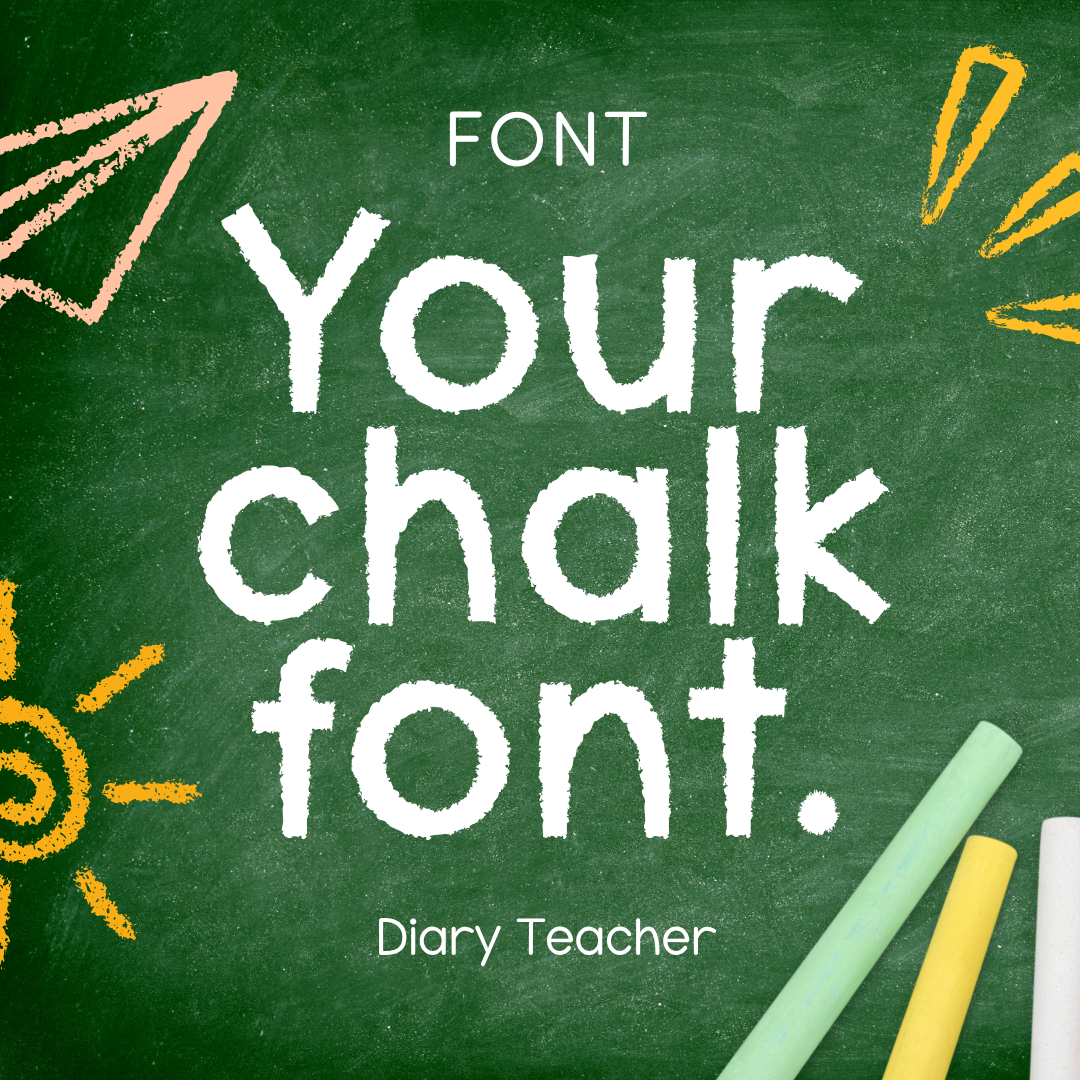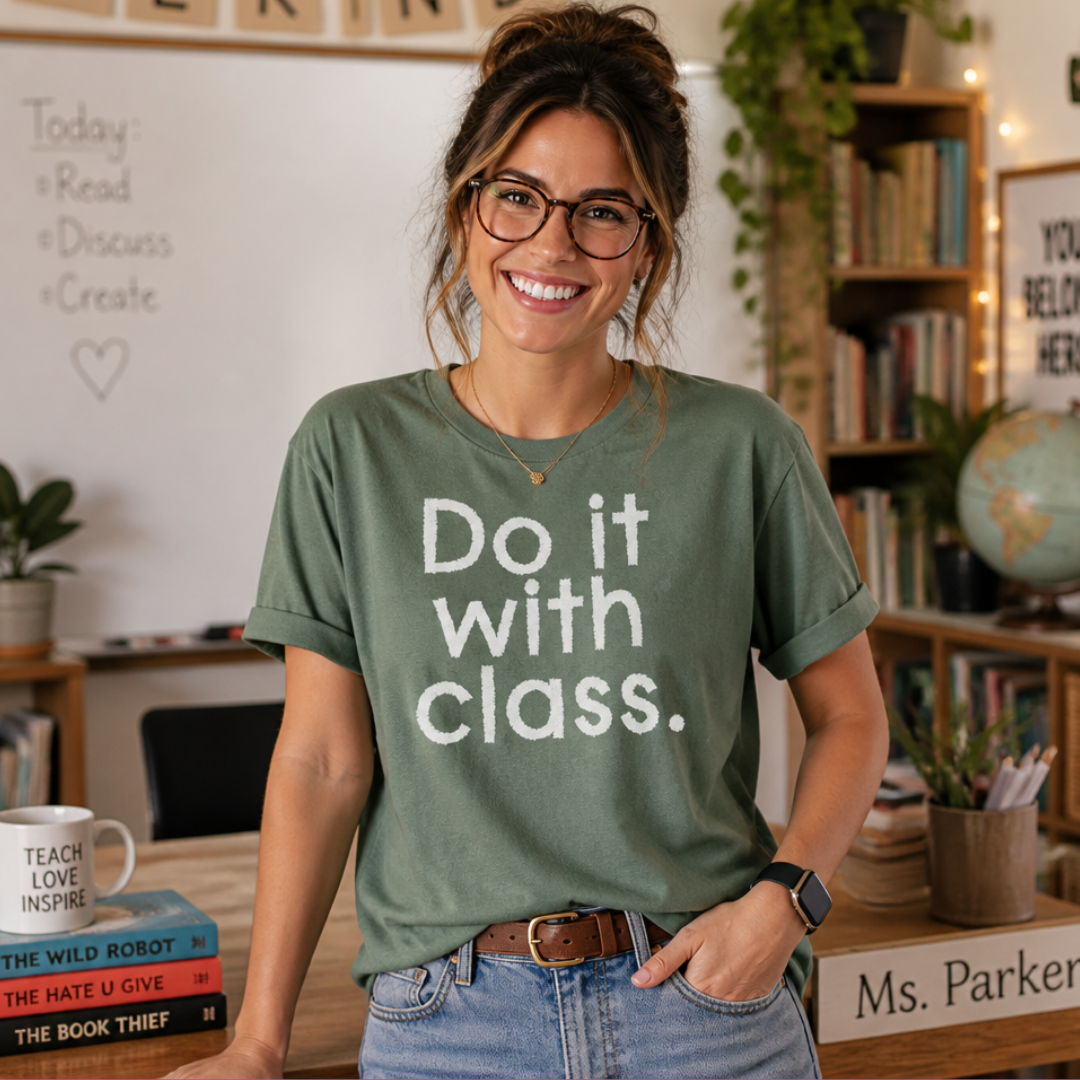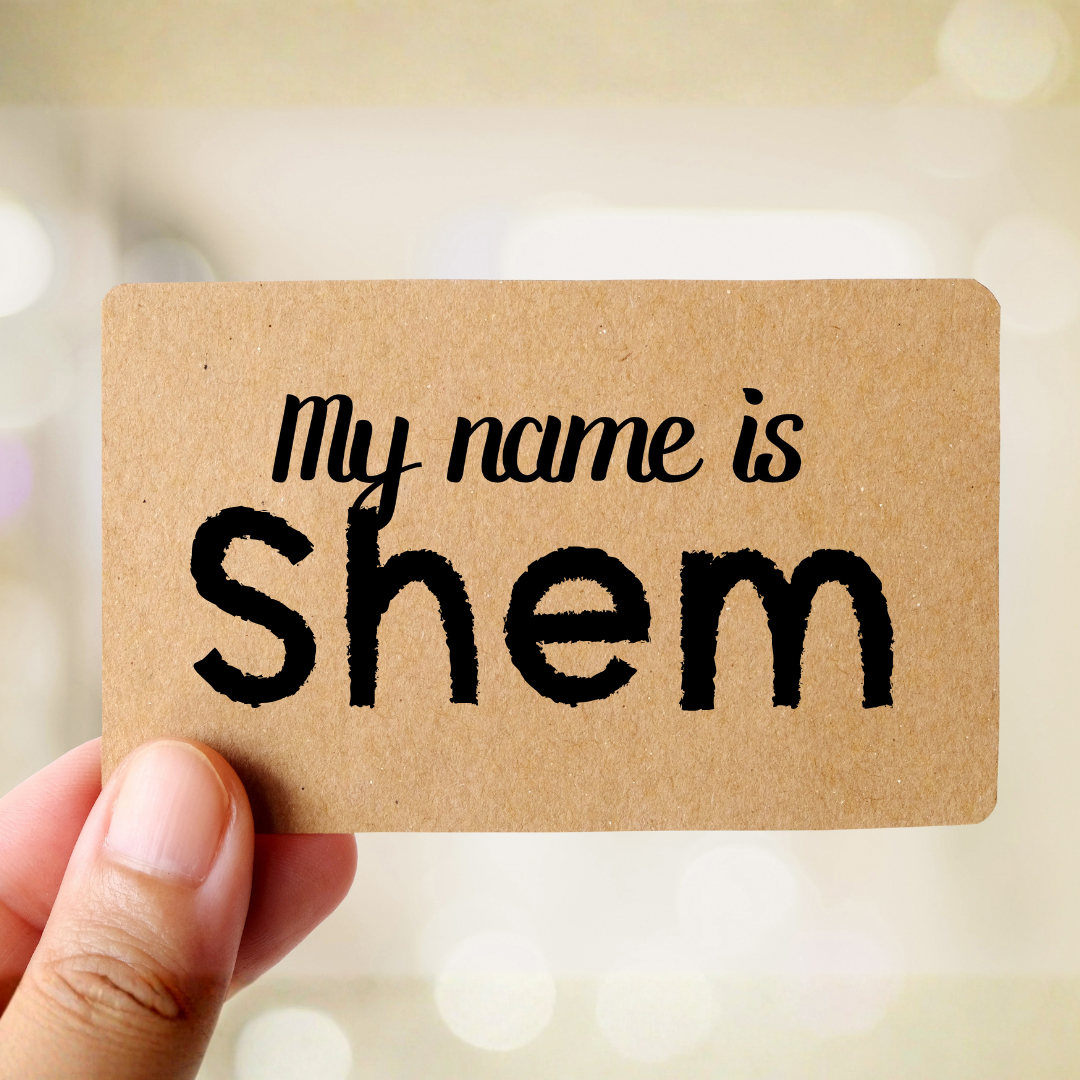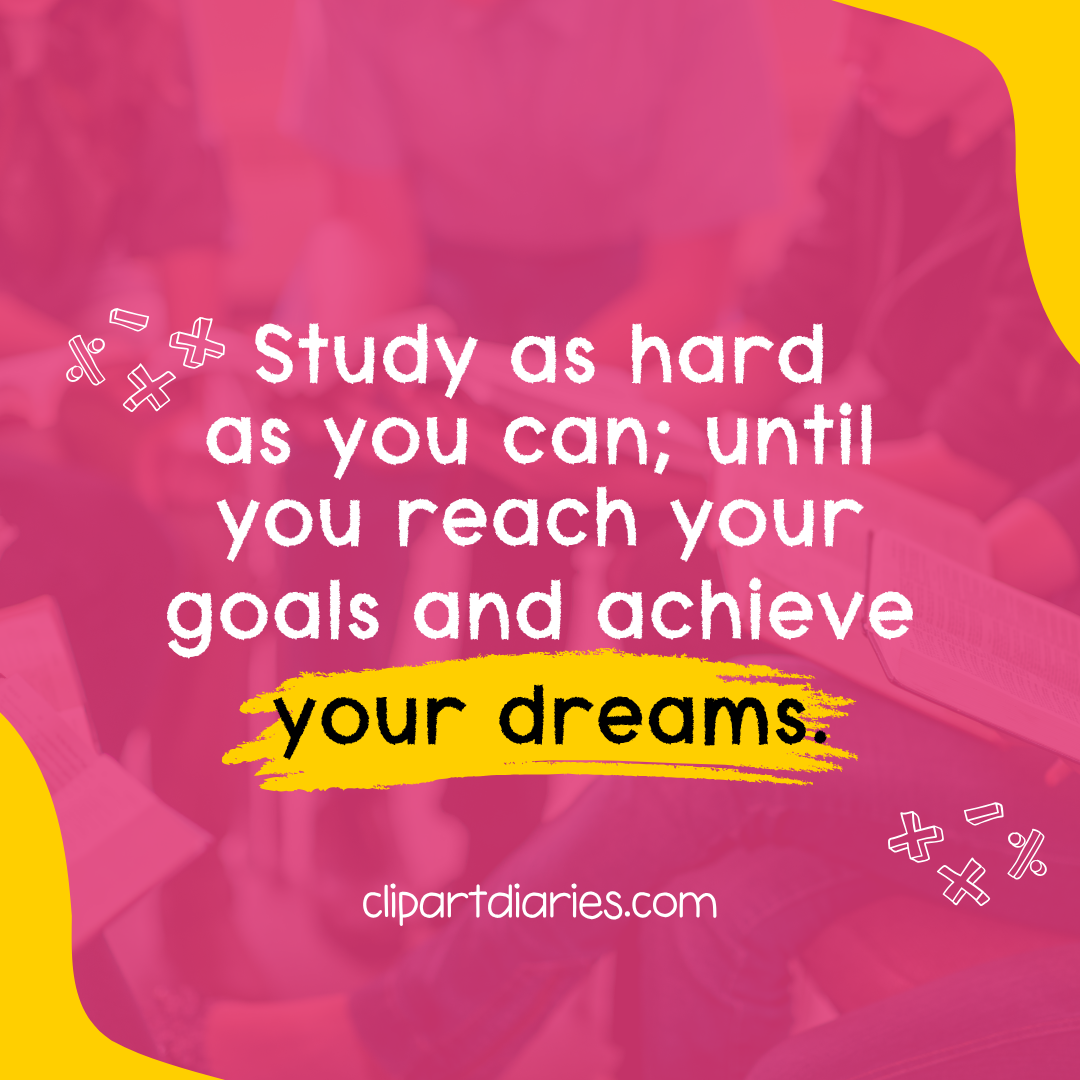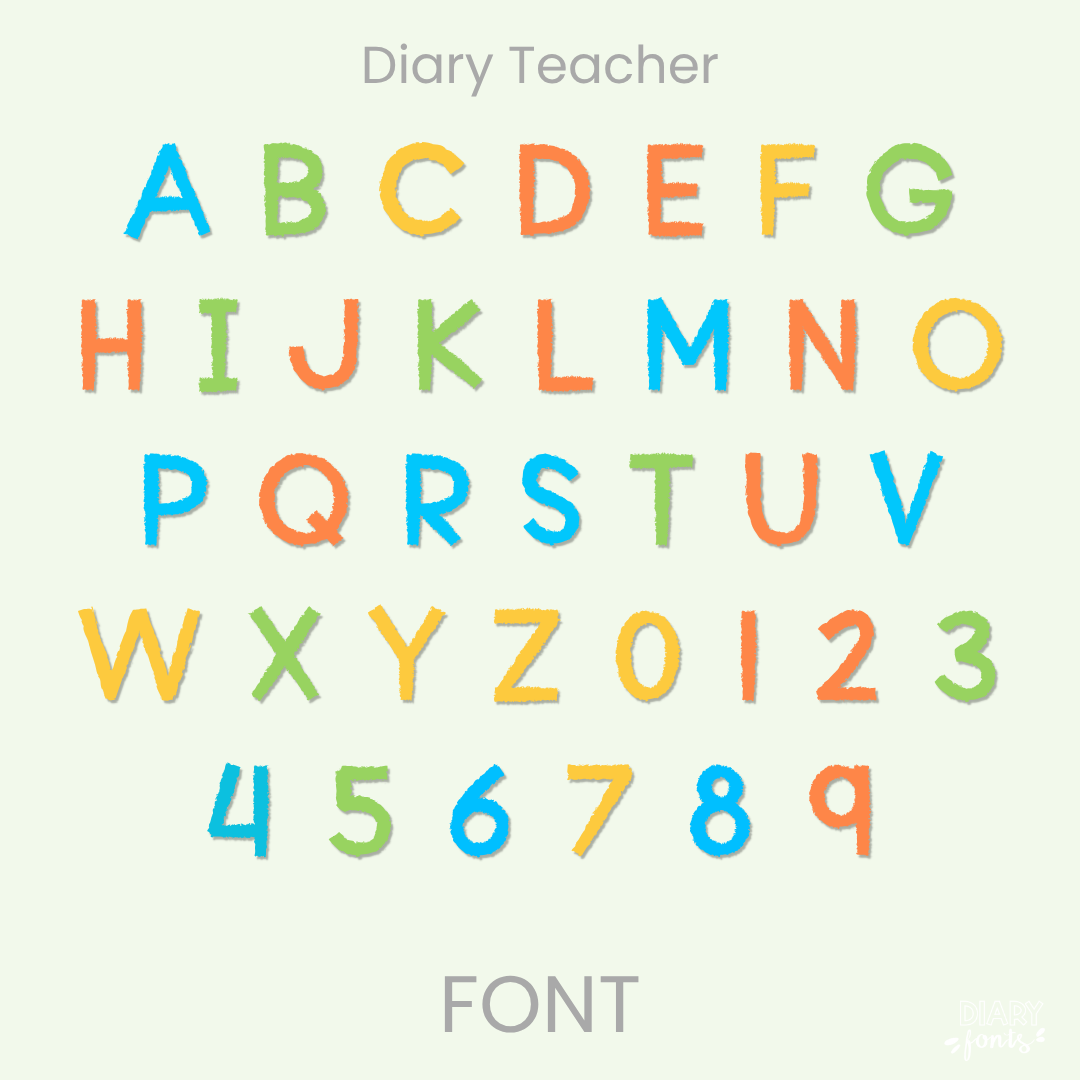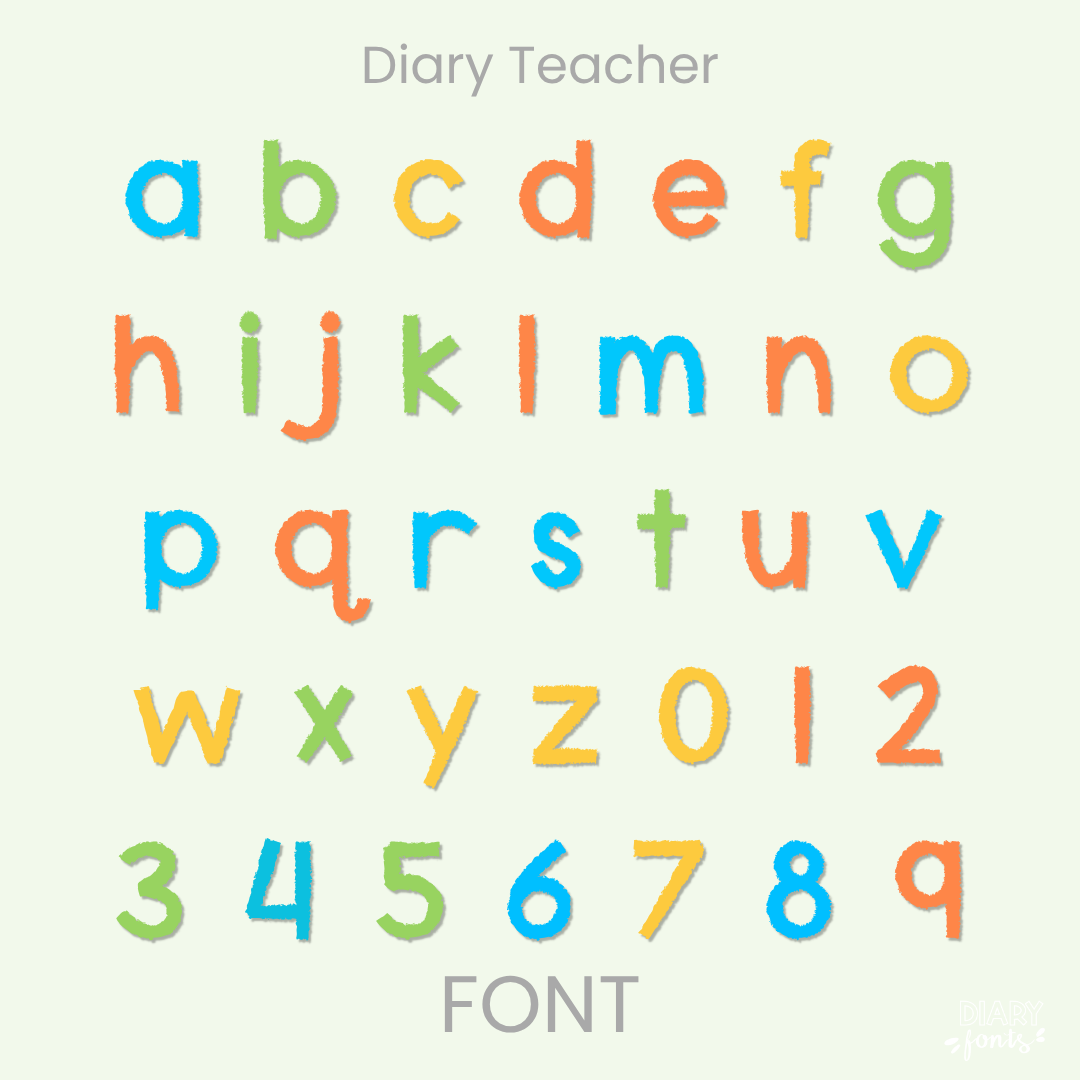
Chalkboard Font for Teachers and Creators (Commercial Use)
Give your worksheets, presentations, and classroom decor a warm, hand-written look without the messy chalk dust! The Diary Teacher Font mimics an authentic blackboard style while remaining completely clean and legible—making it the ultimate typeface for primary school resources, teacher branding, and digital products.
Endless Creative Possibilities
This teacher font is incredibly versatile and scales beautifully for both bold headings and body text. It is ideal for:
- Classroom Decor: Welcome banners, daily agenda slides, bulletin board letters, and labels.
- Educational Resources: TPT products, flashcards, reading worksheets, and printable task cards.
- Teacher Branding: Instagram graphics, TikTok templates, Pinterest pins, teacher blogs, and logos.